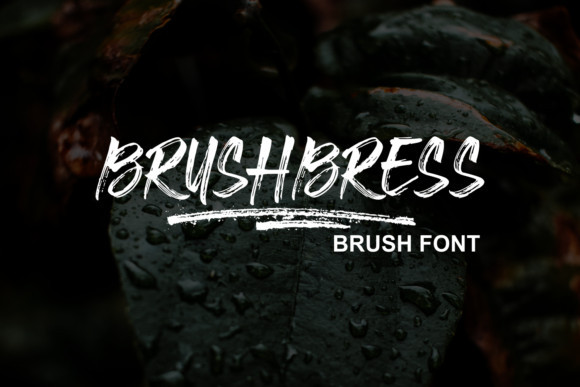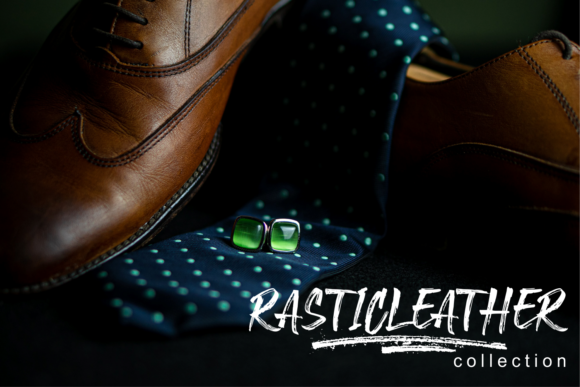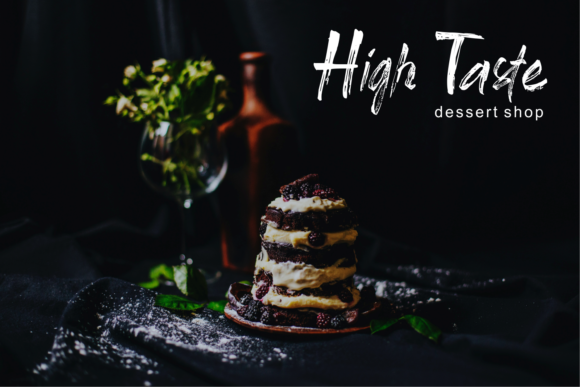
Brushbress Font
Brushbress FontBrushbress is a handwritten font with a dry brush texture with rough details. This font has been designed to suit a variety of projects such as business branding, Instagram quotes, blog headers, fashion apparel, sports communities, film, photography, hobbies and much more.